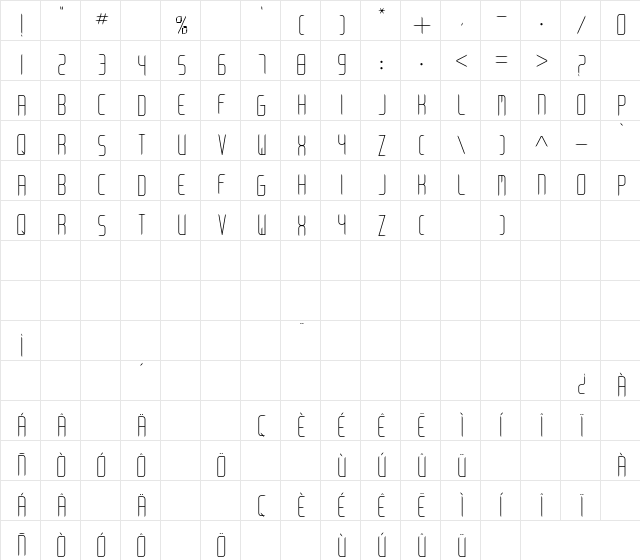
Arkadia Regular
Design Context for Arkadia Typeface
Arkadia offers clean, dependable letterforms without strong stylistic allegiance, making it a practical choice for designers who need flexibility.